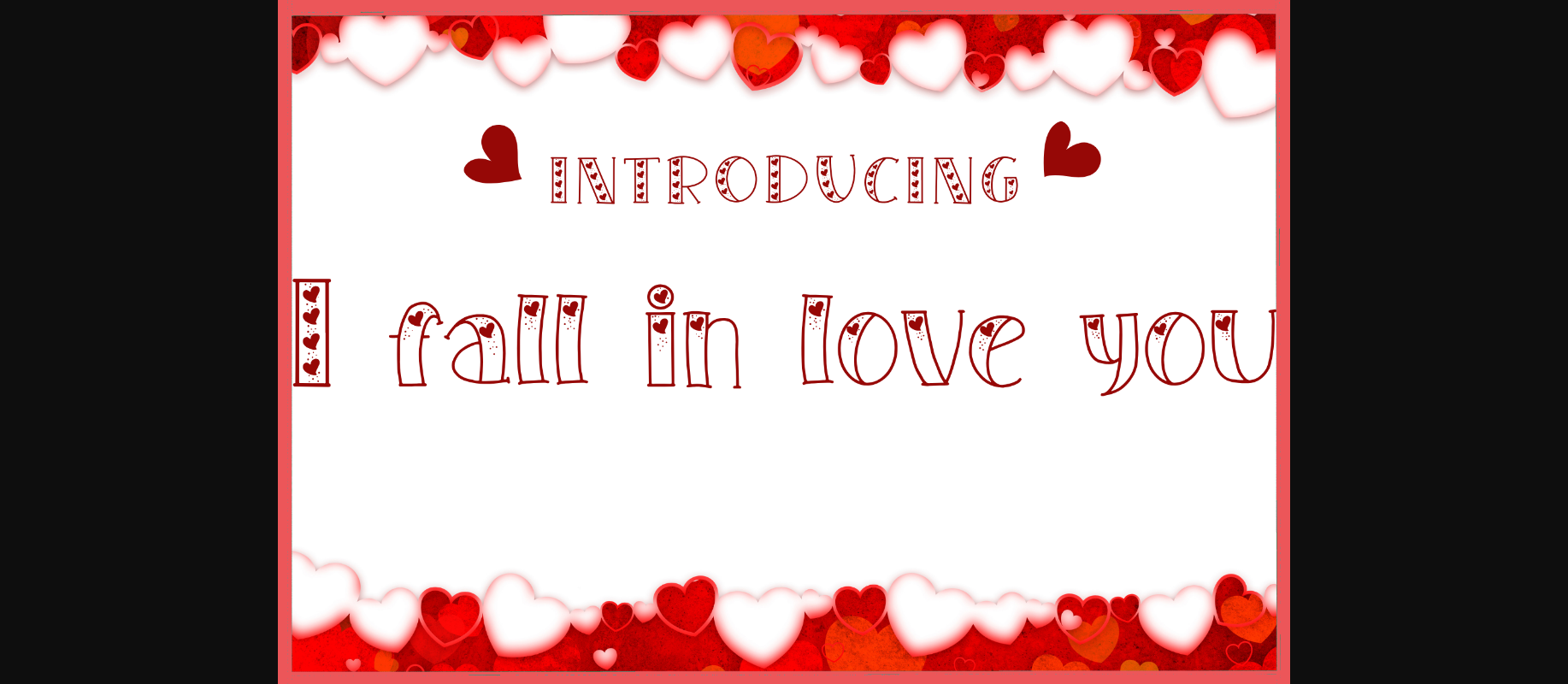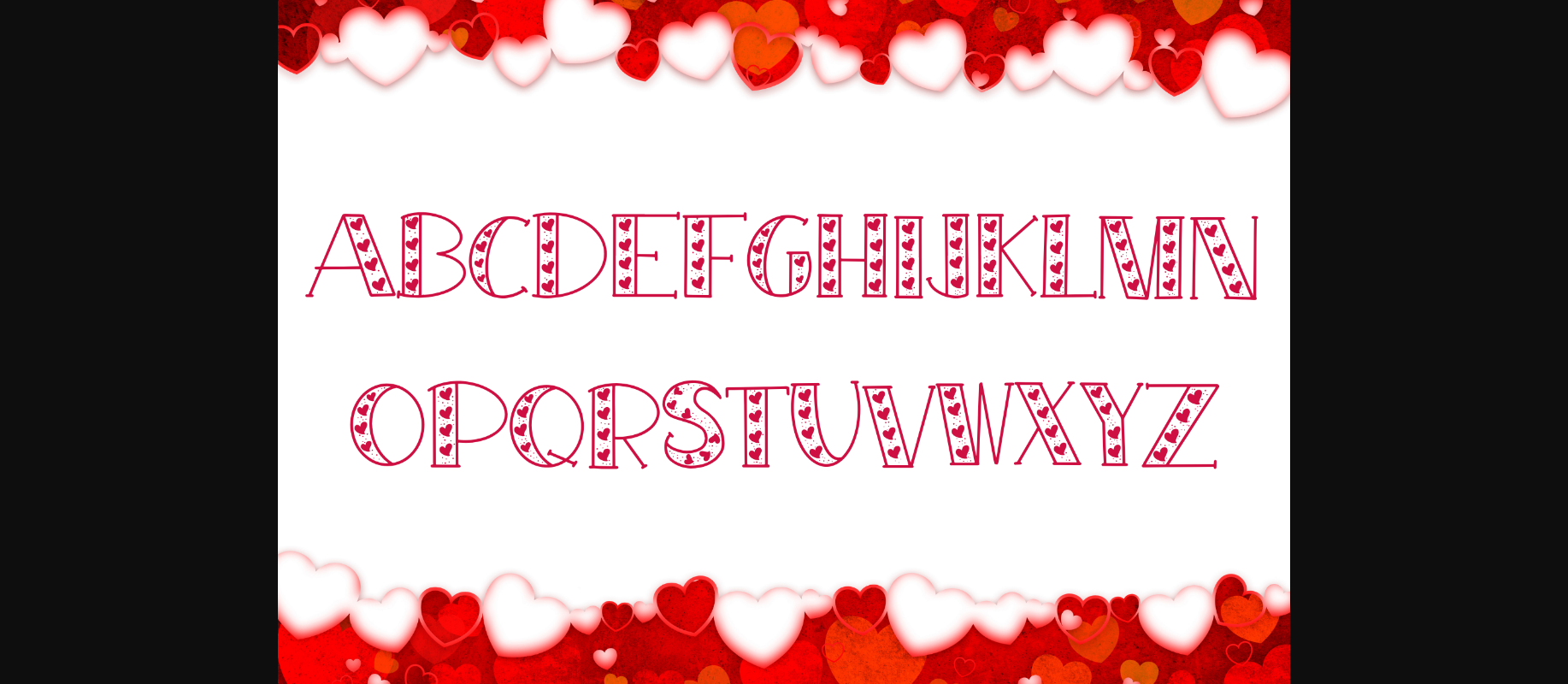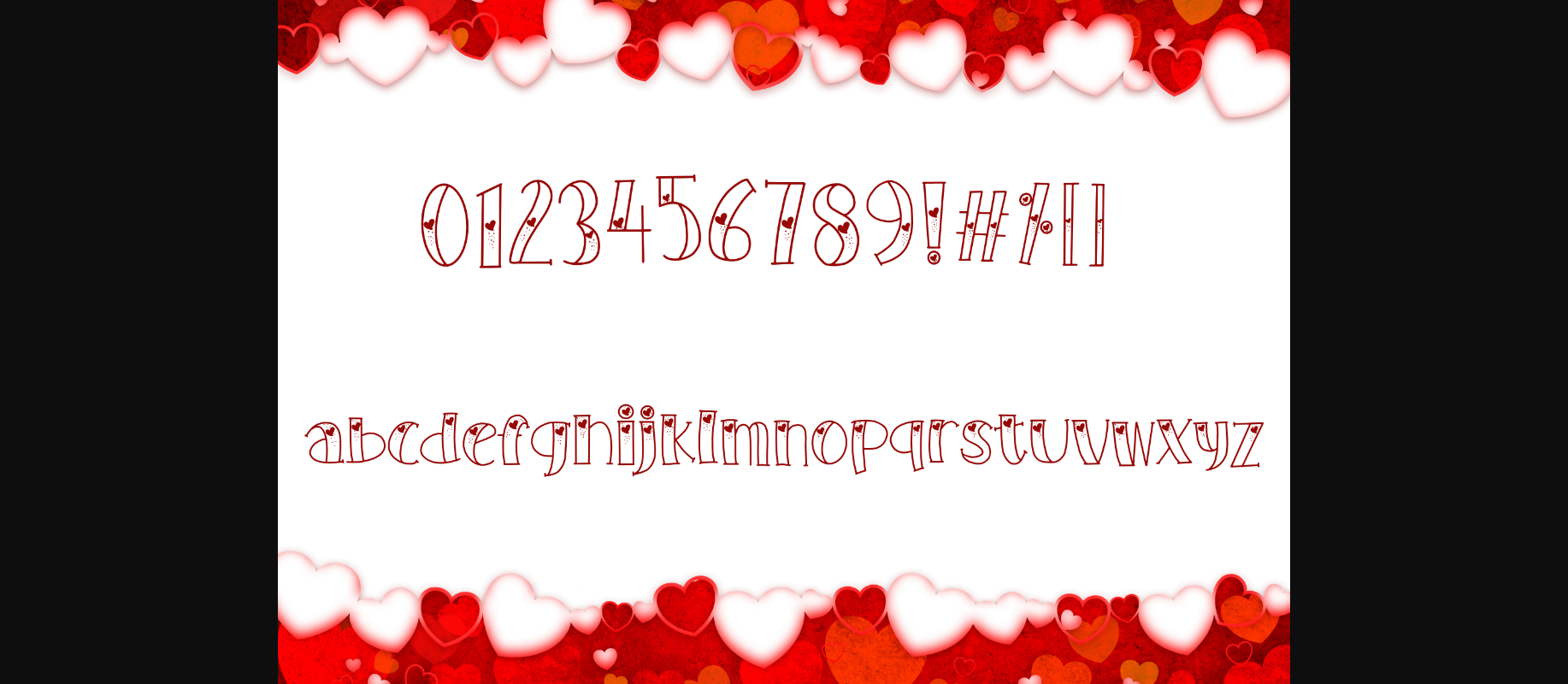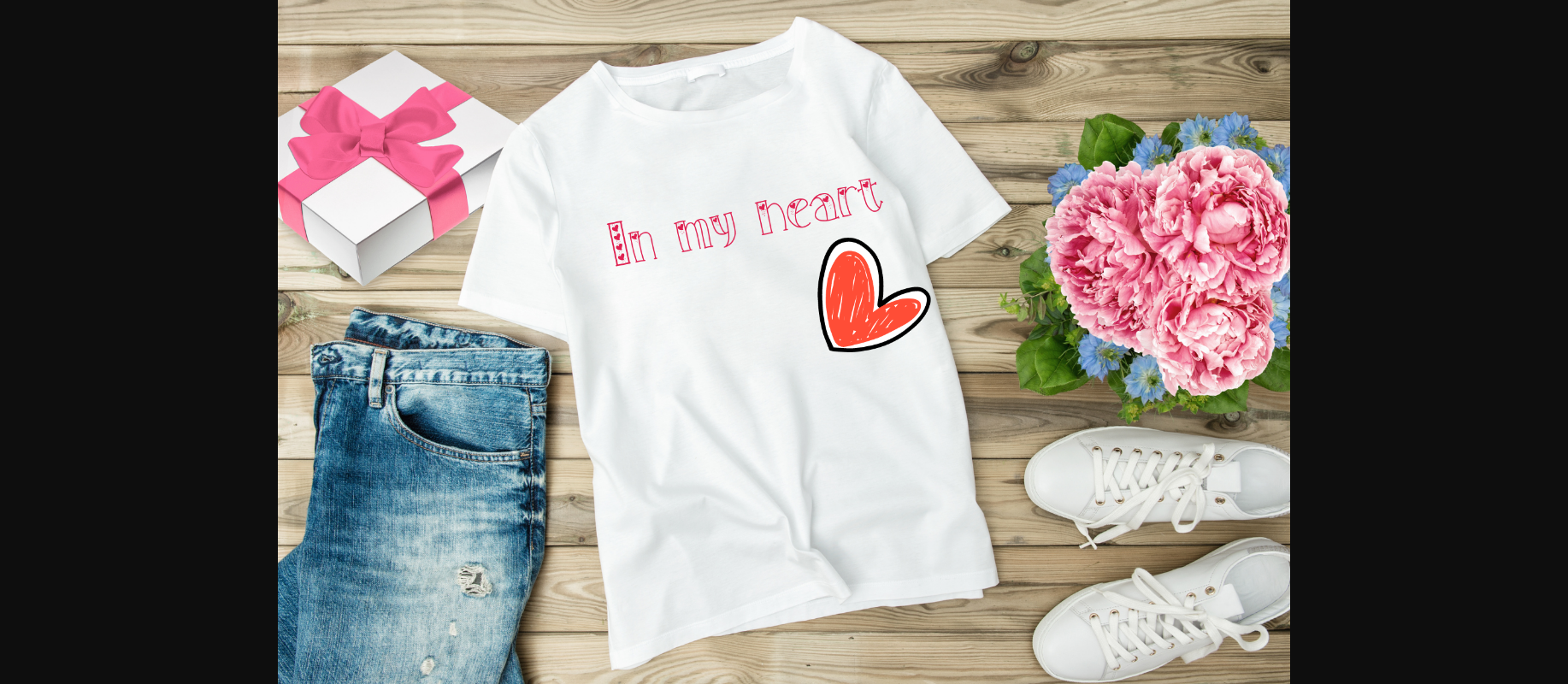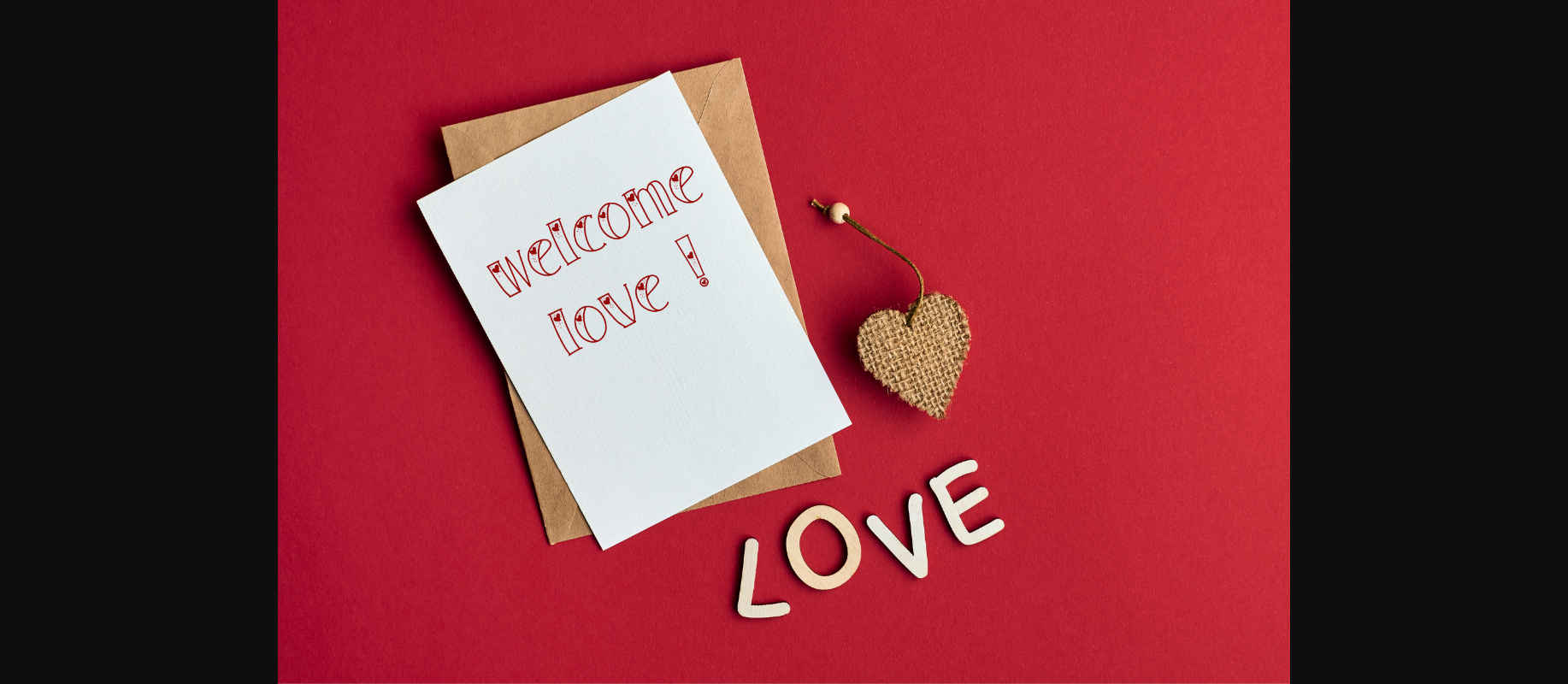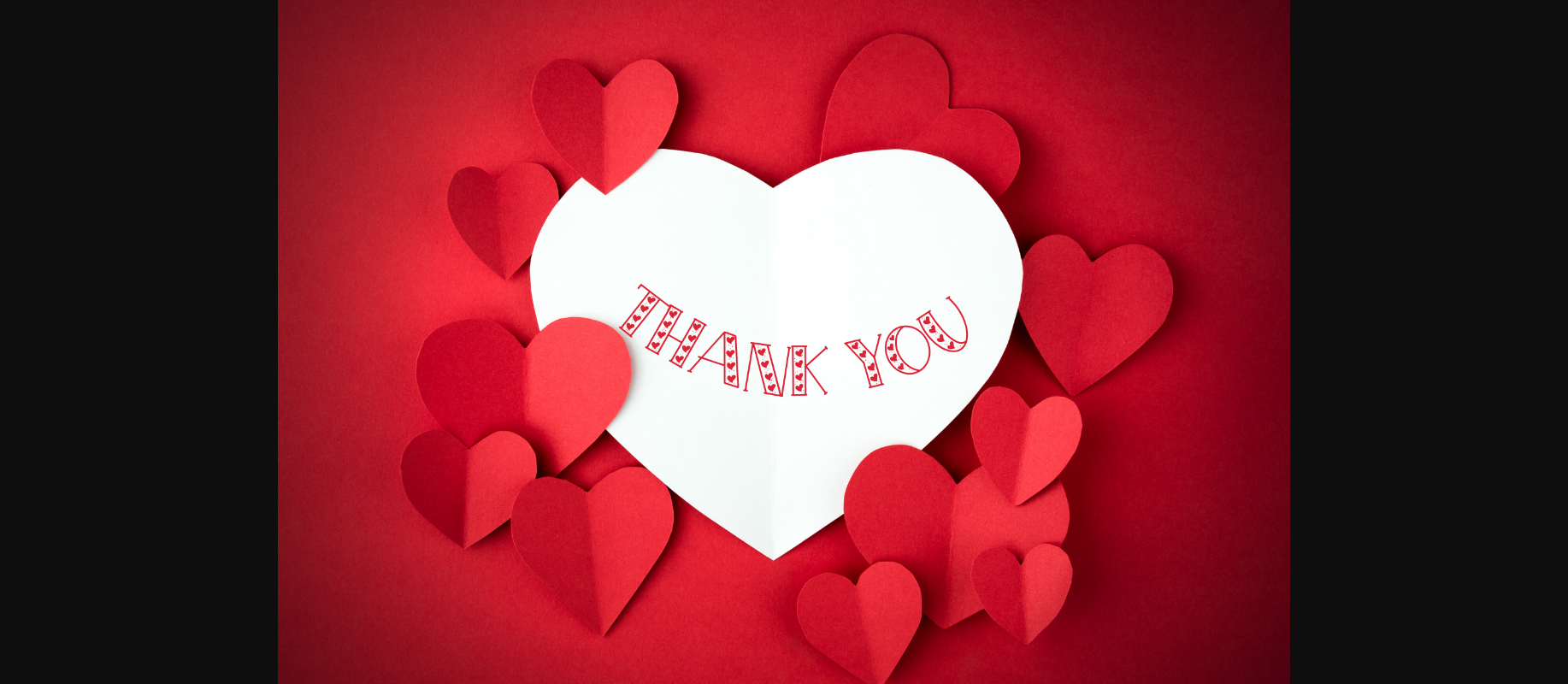
About I Fall in Love You Font
I Fall In Love You is a romantic and cute decorative font suitable for Valentine’s Day gifts, decorating presentations, advertising, illustrations, and many other purposes.
It is a creative design suitable for all applications.